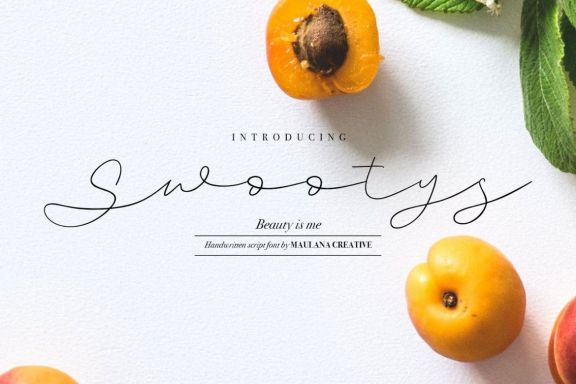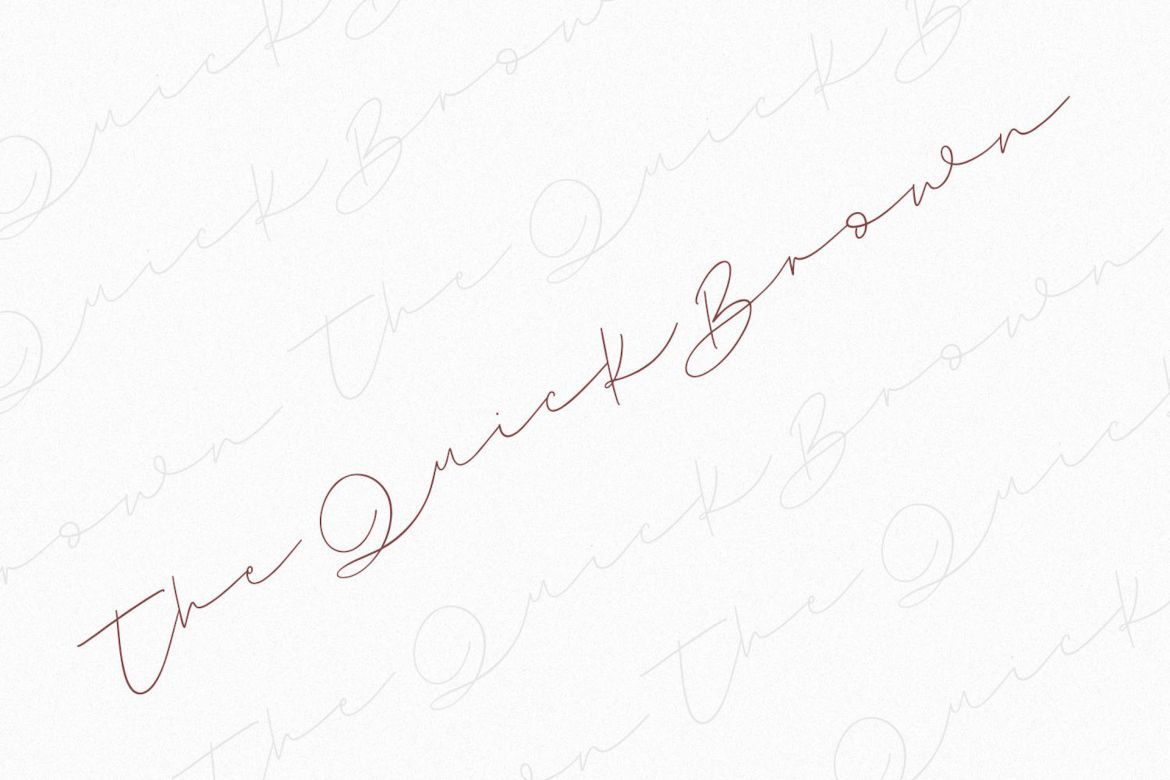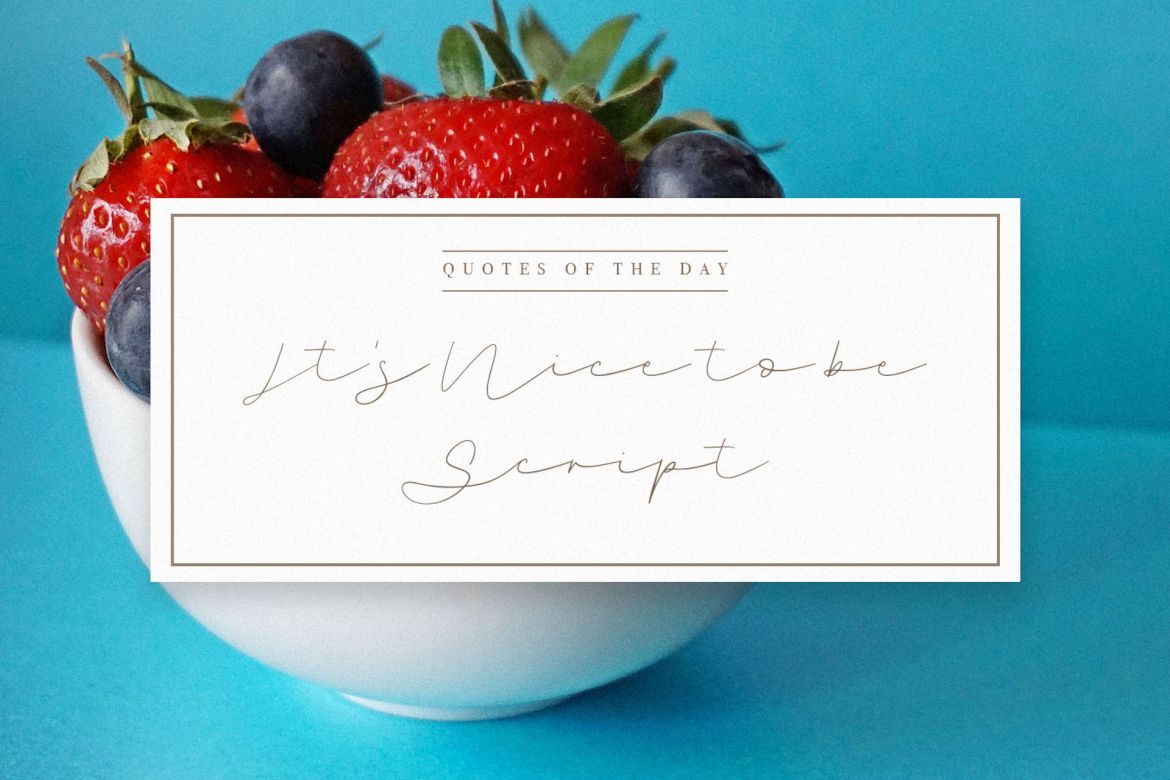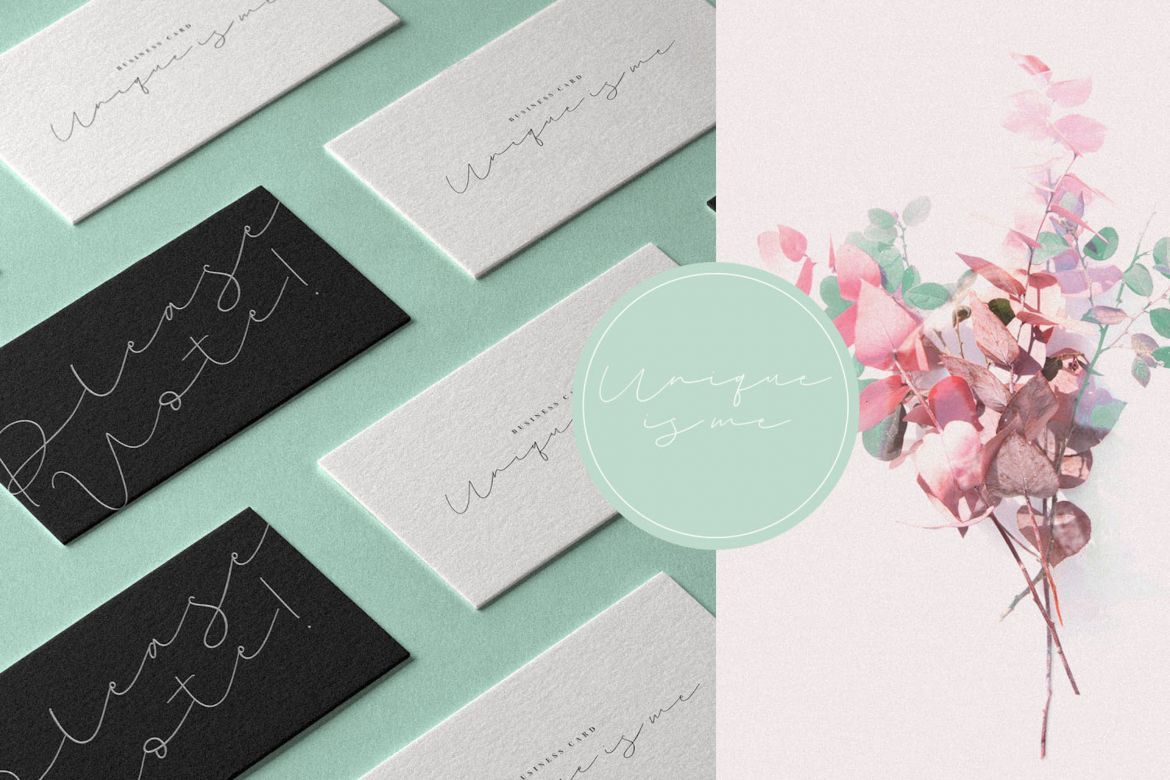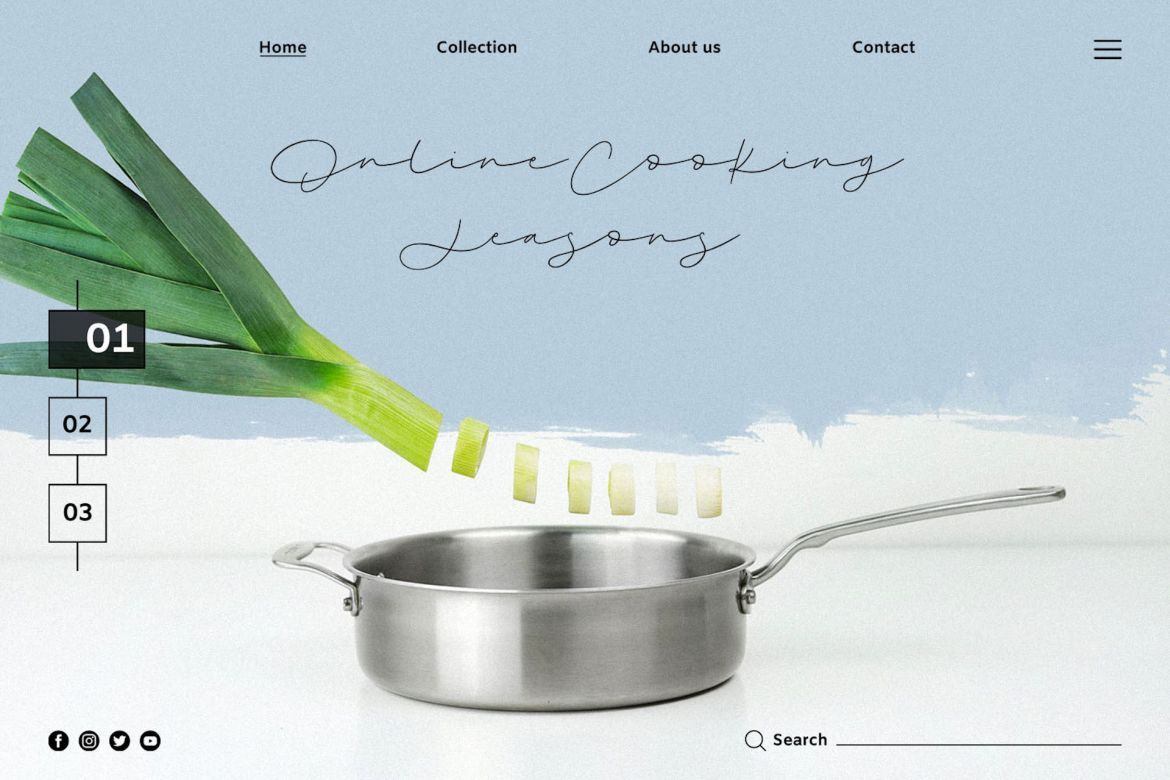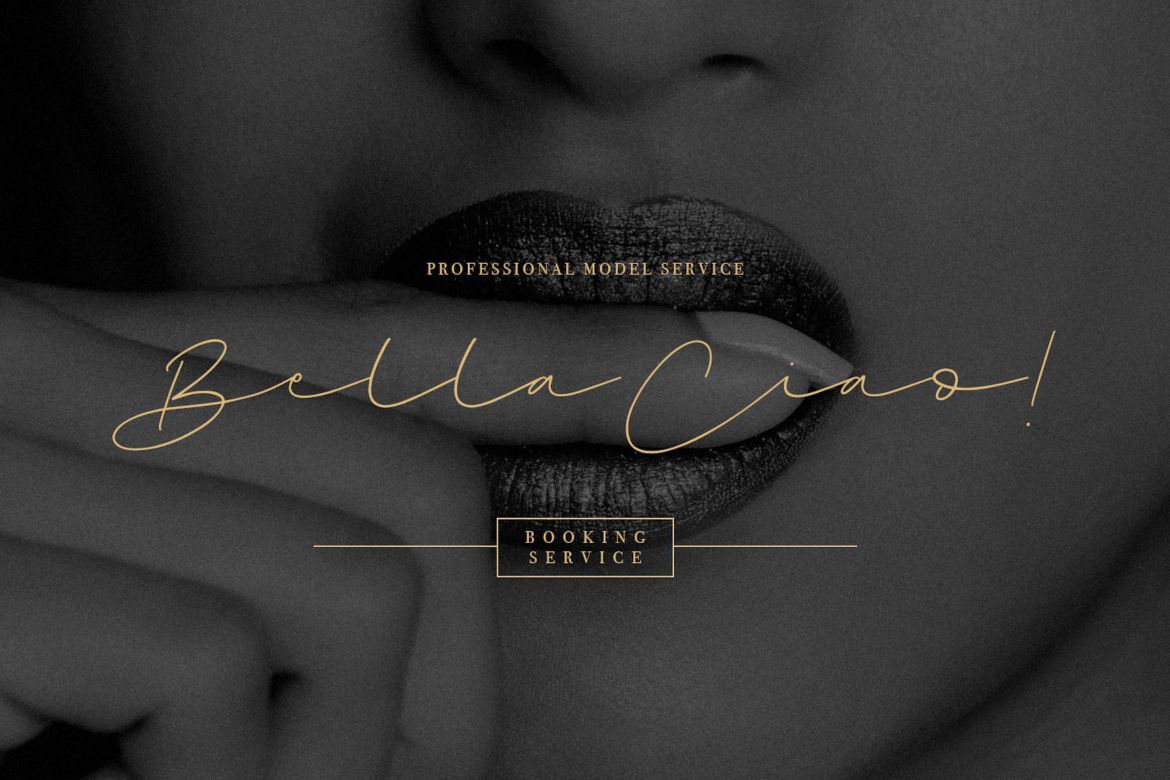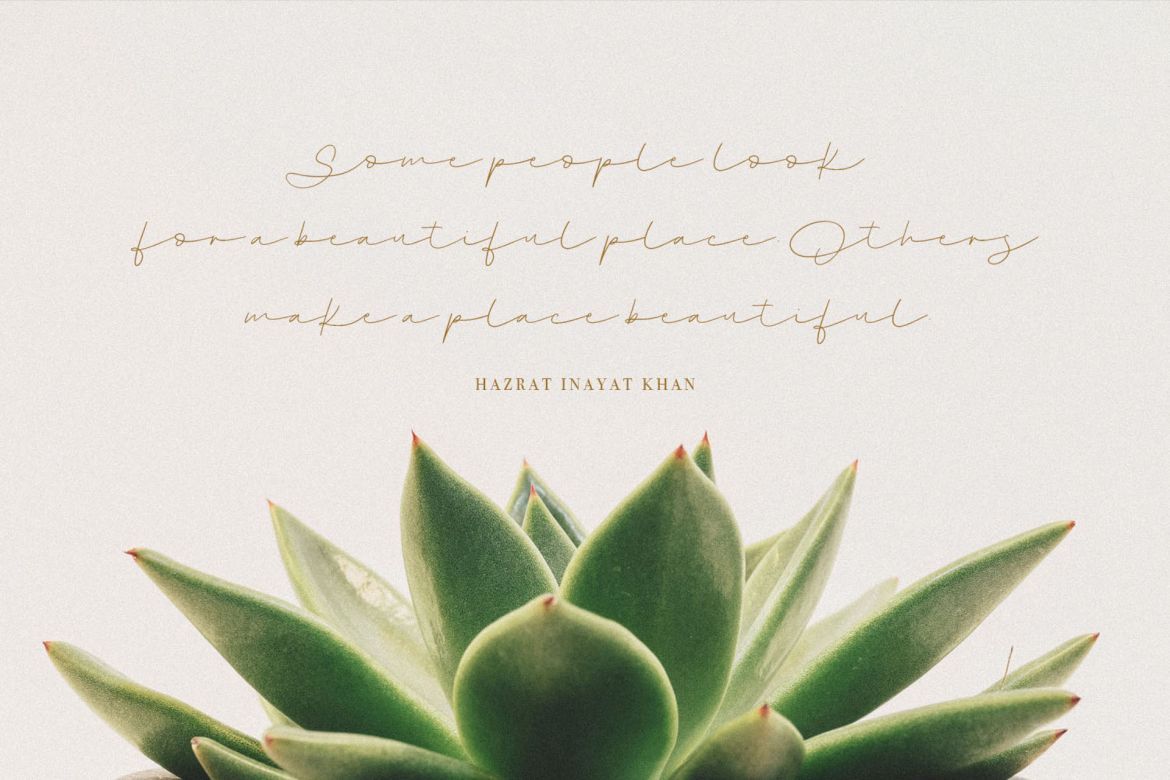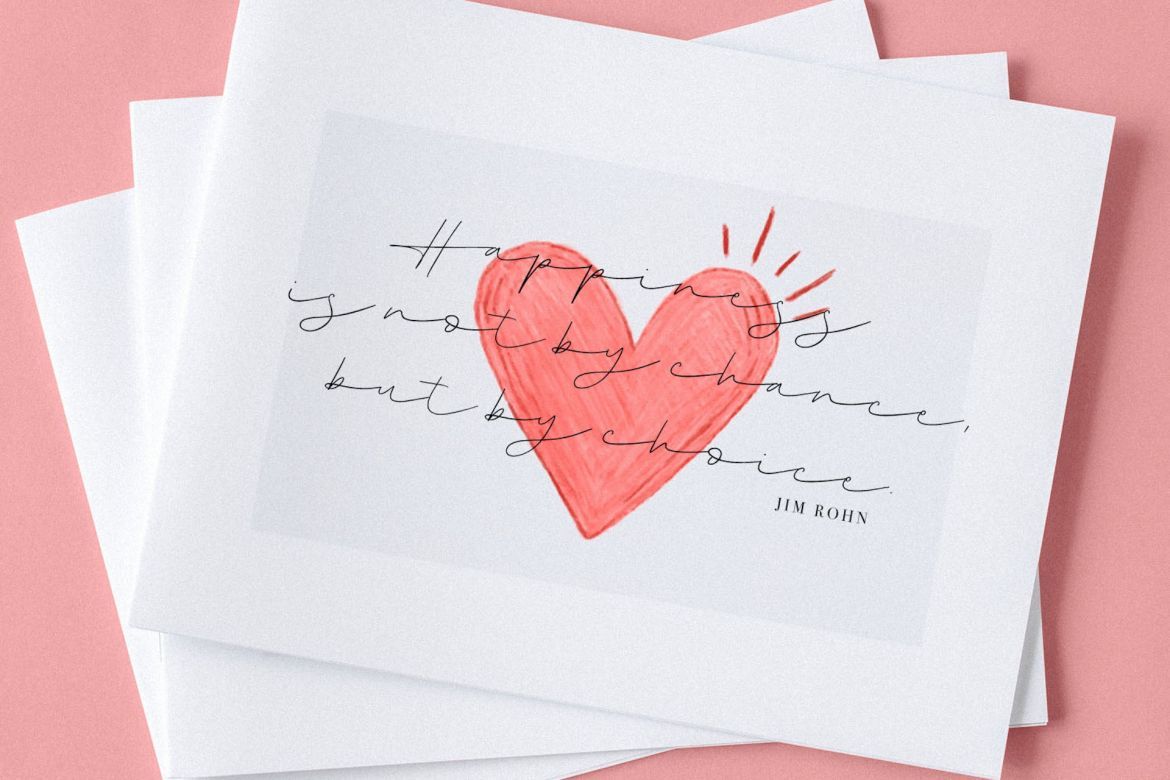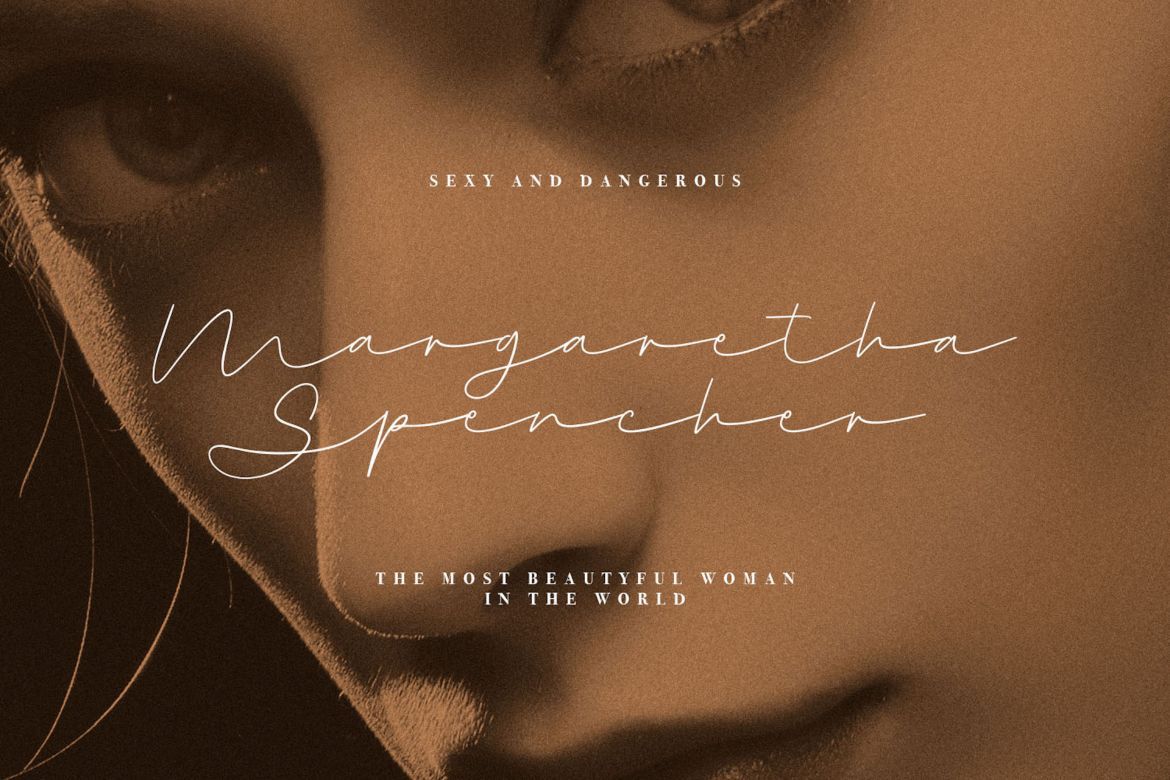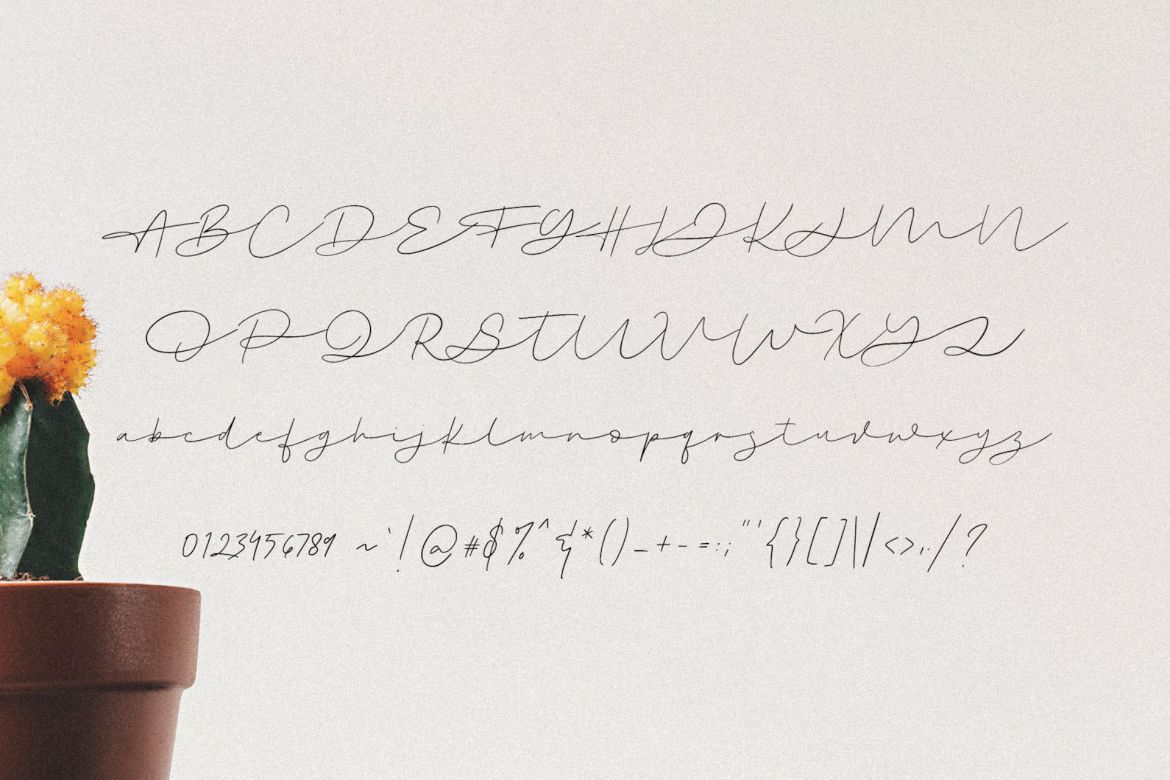
Swootys Script Font
Give your designs an authentic handcrafted feel. "Swootys Script Font" is perfectly suited to signature, stationery, logo, typography quotes, magazine or book cover, website header, clothing, branding, packaging design and more.